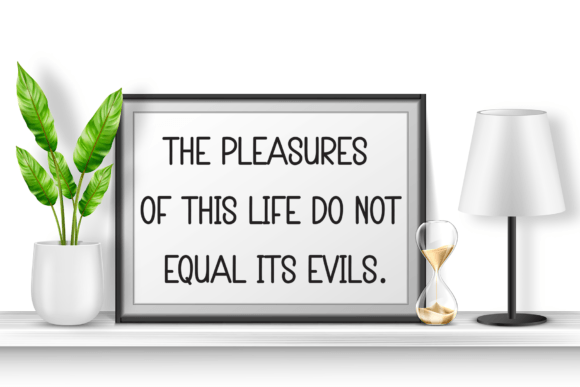
Christmas Moment Font: The Ultimate Festive Display Font for Your Holiday Designs
Are you looking for a font that can add a touch of festivity to your holiday designs? Look no further than the Christmas Moment font. This modern display font is specifically designed to bring a cheerful and playful vibe to your creations, making it perfect for holiday cards, decorations, and cheerful messages.
What is Christmas Moment Font?
Christmas Moment is a modern display font that features clean lines and a playful style. Its unique design makes it stand out from other fonts, and its festive vibe makes it perfect for the holiday season. The font is highly versatile and can be used for a wide range of design projects, from holiday cards and decorations to cheerful messages and social media posts.
Key Features of Christmas Moment Font
- Clean Lines: The font features clean lines that give it a modern and sleek look.
- Playful Style: The playful style of the font makes it perfect for holiday designs that require a touch of fun and festivity.
- Modern Display Font: The font is specifically designed as a display font, making it perfect for headlines, titles, and other prominent text elements.
- Festive Vibe: The font’s festive vibe makes it perfect for holiday designs, including Christmas cards, decorations, and cheerful messages.
Why Use Christmas Moment Font?
There are many reasons why you should consider using Christmas Moment font for your holiday designs. Here are a few:
- Adds a Festive Touch: The font’s festive vibe adds a touch of holiday cheer to your designs, making them perfect for the season.
- Highly Versatile: The font is highly versatile and can be used for a wide range of design projects, from holiday cards and decorations to cheerful messages and social media posts.
- Easy to Read: The font’s clean lines and modern design make it easy to read, even at small sizes.
- Unique Design: The font’s unique design makes it stand out from other fonts, ensuring that your designs will be noticed.
How to Use Christmas Moment Font?
Using Christmas Moment font is easy. Here are a few tips to get you started:
- Holiday Cards: Use the font to create festive holiday cards that will impress your friends and family.
- Decorations: Use the font to create festive decorations, such as holiday banners and signs.
- Cheerful Messages: Use the font to create cheerful messages, such as holiday greetings and social media posts.
- Combine with Other Fonts: Combine the font with other fonts to create a unique and eye-catching design.
Tips for Using Christmas Moment Font Effectively
Here are a few tips for using Christmas Moment font effectively:
- Use it Sparingly: Use the font sparingly to avoid overwhelming your design.
- Choose the Right Size: Choose the right size for your font to ensure that it’s easy to read.
- Experiment with Colors: Experiment with different colors to find the perfect combination for your design.
- Pair it with Images: Pair the font with images to create a visually appealing design.
- What is Christmas Moment font? Christmas Moment font is a modern display font that features clean lines and a playful style.
- What is Christmas Moment font used for? Christmas Moment font is perfect for holiday cards, decorations, and cheerful messages.
- Is Christmas Moment font easy to read? Yes, Christmas Moment font is easy to read, even at small sizes.